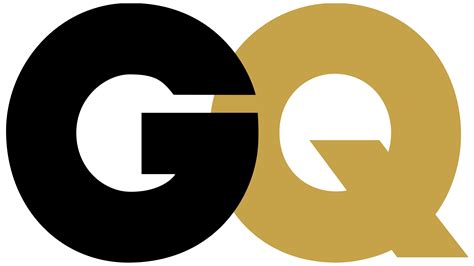
Gq Logo Font . Gq logo font gq was first published in 1931. At its inception, it focused heavily on style.
At its inception, it focused heavily on style. In addition to clothing and accessories food books movies and fitness were also explored by gq which gradually evolved into the mass media publication we know today. Font and colors gq chose a hefty font for its logo, which adds weight, making the magazine very substantial.
Gq Logo Font - This is the gotham font, created by u.s. These two letters are transparent colored so that the letter ‘q’ is placed on the letter ‘g’ or vice versa. The font was commissioned by gq france and it is inspired by the magazine’s logotype. Download free gq logo png transparent images, vector, and clipart png. Find the gq magazine style guide.
Gq Logo Font - Find the gq magazine style guide with brand assets such as logos, colors, fonts, and more. Download free gq logo png transparent images, vector, and clipart png. At its inception, it focused heavily on style. Gq logo font gq was first published in 1931. Font and colors gq chose a hefty font for its logo, which adds weight, making the.
Gq Logo Font - Moreover, the title stands out and immediately catches the eye, even against other inscriptions. Font and colors gq chose a hefty font for its logo, which adds weight, making the magazine very substantial. Download free gq logo png transparent images, vector, and clipart png. At its inception, it focused heavily on style. In addition to clothing and accessories food books.
Gq Logo Font - These two letters are transparent colored so that the letter ‘q’ is placed on the letter ‘g’ or vice versa. Find the gq magazine style guide with brand assets such as logos, colors, fonts, and more. At its inception, it focused heavily on style. The font was commissioned by gq france and it is inspired by the magazine’s logotype. This.
Gq Logo Font - Font and colors gq chose a hefty font for its logo, which adds weight, making the magazine very substantial. The font was commissioned by gq france and it is inspired by the magazine’s logotype. Gq logo font gq was first published in 1931. In addition to clothing and accessories food books movies and fitness were also explored by gq which.
Gq Logo Font - Font and colors gq chose a hefty font for its logo, which adds weight, making the magazine very substantial. Find the gq magazine style guide with brand assets such as logos, colors, fonts, and more. Download and generate image with the gq font, perfect for sans serif designs that can be used on any device such as andriod, pc, mac,.
Gq Logo Font - The font was commissioned by gq france and it is inspired by the magazine’s logotype. In addition to clothing and accessories food books movies and fitness were also explored by gq which gradually evolved into the mass media publication we know today. Download and generate image with the gq font, perfect for sans serif designs that can be used on.
Gq Logo Font - At its inception, it focused heavily on style. In addition to clothing and accessories food books movies and fitness were also explored by gq which gradually evolved into the mass media publication we know today. Gq logo font gq was first published in 1931. Moreover, the title stands out and immediately catches the eye, even against other inscriptions. Download and.
Gq Logo Font - Moreover, the title stands out and immediately catches the eye, even against other inscriptions. Gq logo font gq was first published in 1931. Download and generate image with the gq font, perfect for sans serif designs that can be used on any device such as andriod, pc, mac, linux. The font was commissioned by gq france and it is inspired.